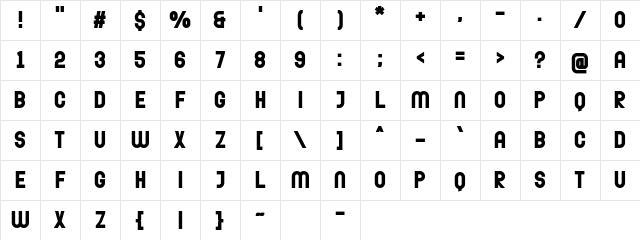
Dexoljack Regular Free Font
Dexoljack Regular
Foundry: Shanaya Creative Studio
Designer: Wahyu Sa
Design Context for Dexoljack
Dexoljack is a composed and adaptable typeface that performs quietly and consistently across a wide range of design contexts.
Pro Tip: Use Dexoljack in both headline and body roles to test its range before committing to a single application.
Who designed the Dexoljack Regular font?